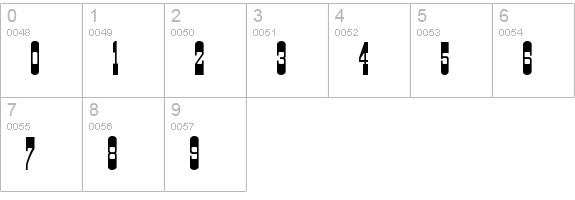
Capolar font is a sleek and modern typeface designed to bring a touch of sophistication to your designs. Its elegant curves and clean lines make it perfect for a wide range of projects, from branding to editorial design. With its versatile style, Capolar font can easily adapt to various themes and layouts, adding a touch of elegance and professionalism. The best part? Capolar font is completely free to download at FontsMarket.com! This means you can enhance your projects with this beautiful font without any cost. Whether you're working on a personal project or a client's design, Capolar font is a fantastic choice that won't break the bank. Download it today and add a touch of sophistication to your designs with ease.